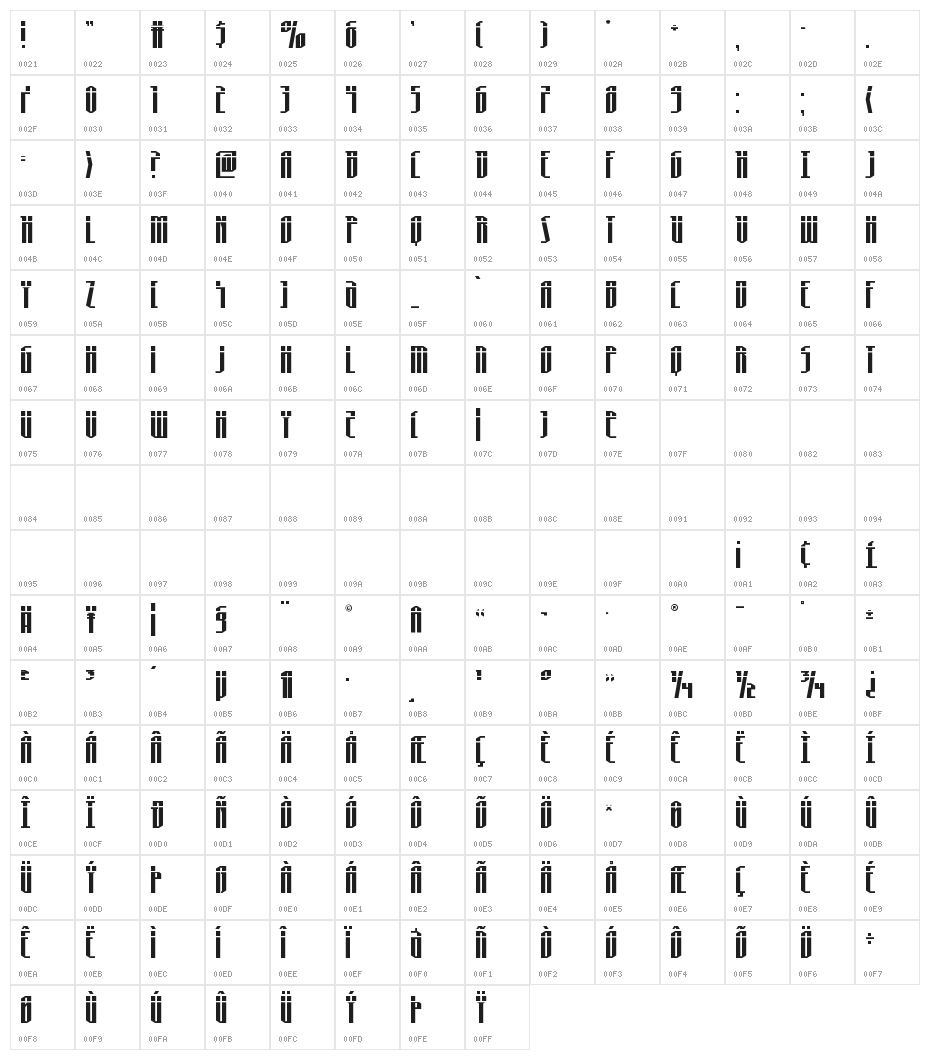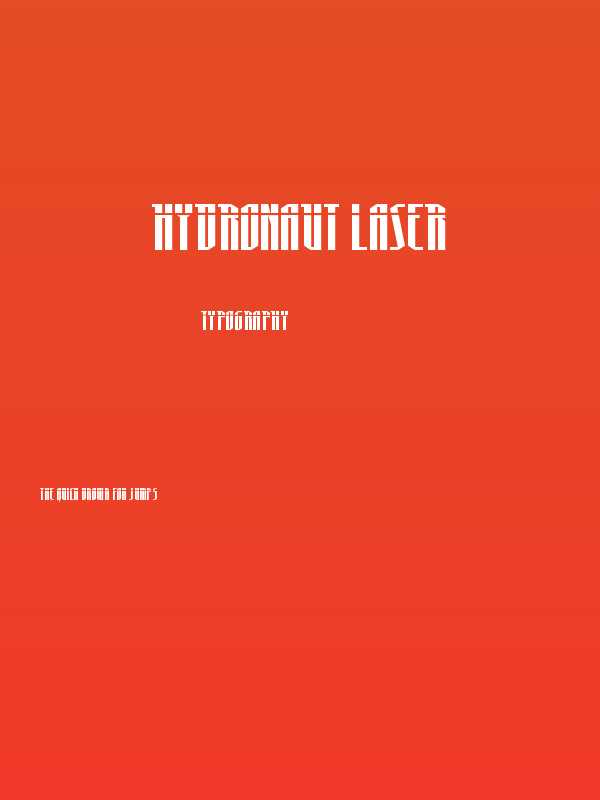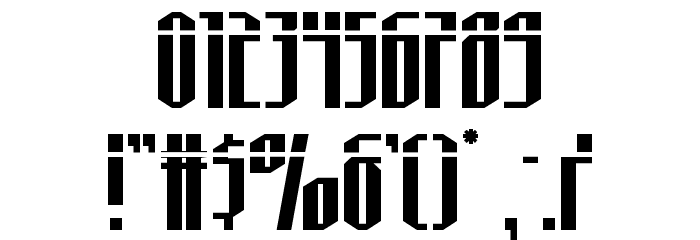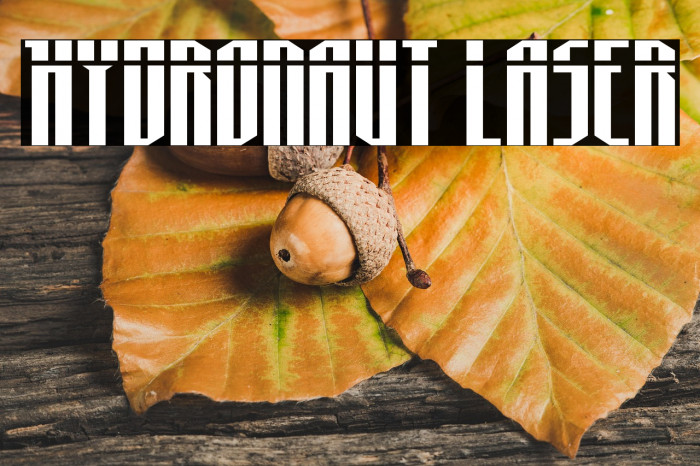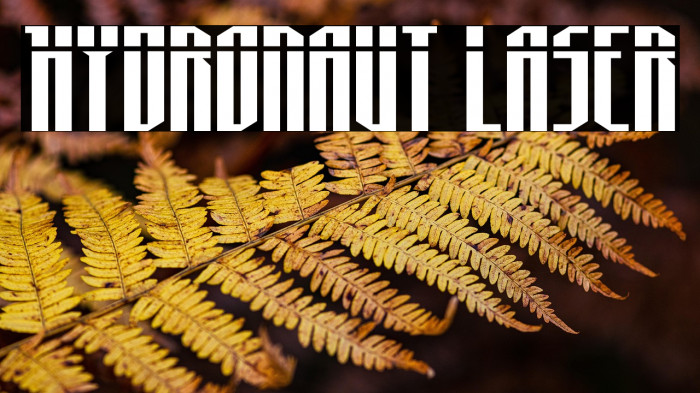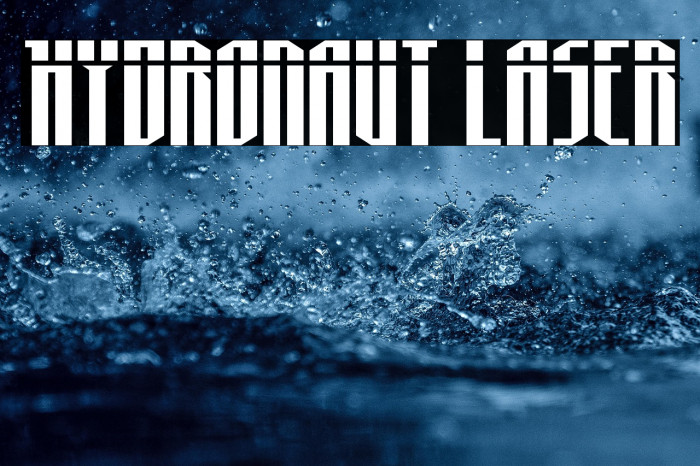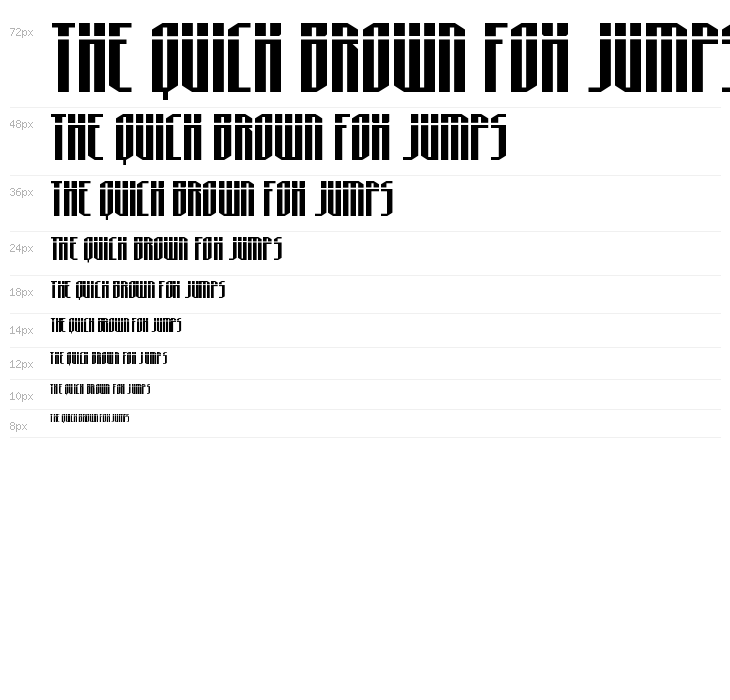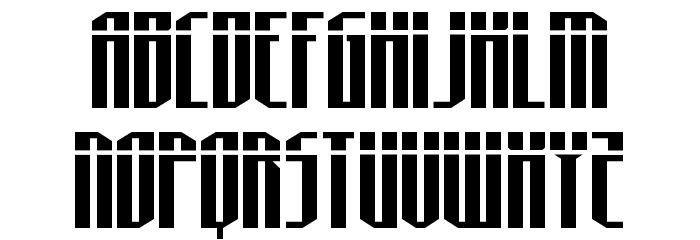
Hydronaut Laser Font
Hydronaut Laser Description
This font features a bold and futuristic design with sharp, angular edges and a geometric structure. The uppercase letters are tall and narrow, giving a sense of height and modernity. The lowercase letters maintain the same angular style, ensuring consistency across the typeface. Numbers are equally bold and geometric, fitting seamlessly with the overall aesthetic. Special characters are designed with the same attention to detail, making them stand out while remaining cohesive with the rest of the font. The font's unique style makes it ideal for projects that require a modern, tech-inspired look.
| Proposed Projects | Ideal for sci-fi movie posters, tech branding, video game titles, and futuristic event flyers. |